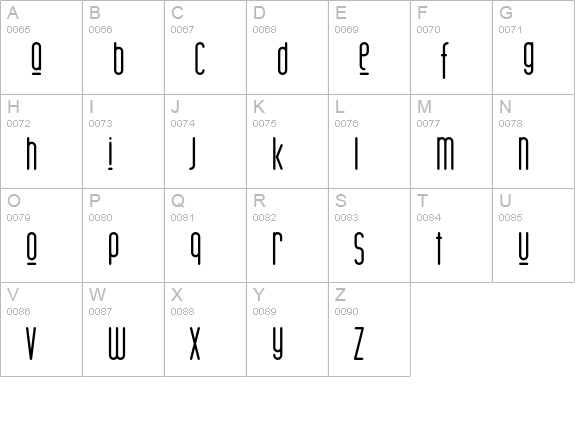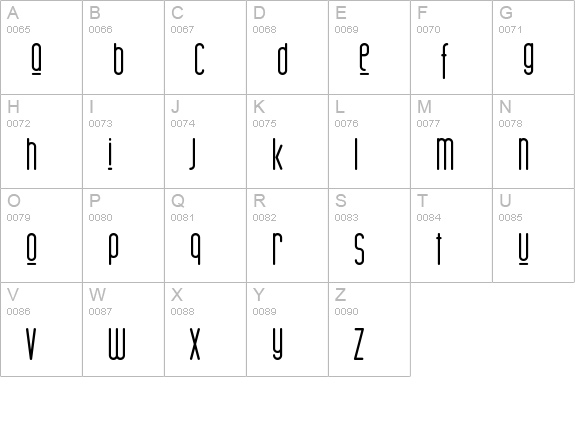
Gaffe Font Details
Introducing Gaffe Font, a stylish and modern typeface that is sure to make a bold statement in any design project. With its clean lines and sleek curves, Gaffe Font exudes confidence and professionalism. Whether you're creating a logo, designing a website, or crafting a captivating advertisement, this versatile font is the perfect choice to add a touch of elegance and sophistication. But what sets Gaffe Font apart is not just its stunning aesthetics. It also comes with the added benefit of being free. That's right, you can download Gaffe Font for absolutely no cost at FontsMarket.com. We believe that great design should be accessible to everyone, and that's why we've made Gaffe Font freely available to all. With its wide range of weights and styles, Gaffe Font offers endless possibilities for creativity. From thin and delicate to bold and impactful, this font allows you to effortlessly convey your message with the perfect balance of elegance and strength. Its extensive character set includes uppercase and lowercase letters, numerals, punctuation marks, and even special symbols, ensuring that your design will be complete and cohesive. Not only is Gaffe Font visually stunning, but it is also incredibly easy to work with. Its clean and well-defined letterforms ensure legibility at any size, making it suitable for both print and digital applications. Whether you're designing a poster, a magazine layout, or a social media graphic, Gaffe Font will bring your vision to life with its crisp and professional appearance. So don't miss out on this incredible opportunity to enhance your design projects with Gaffe Font. Download it for free now at FontsMarket.com and unleash your creativity like never before. Whether you're a seasoned designer or just starting out, Gaffe Font is the perfect addition to your toolkit, offering style, versatility, and accessibility all in one package. So go ahead, give your designs the edge they deserve with Gaffe Font.